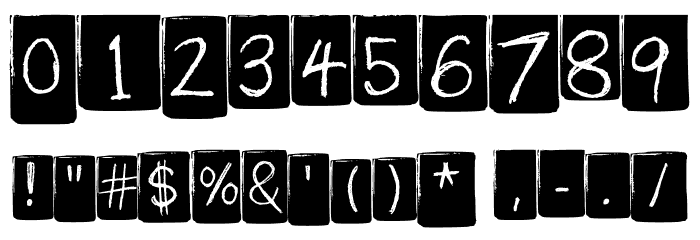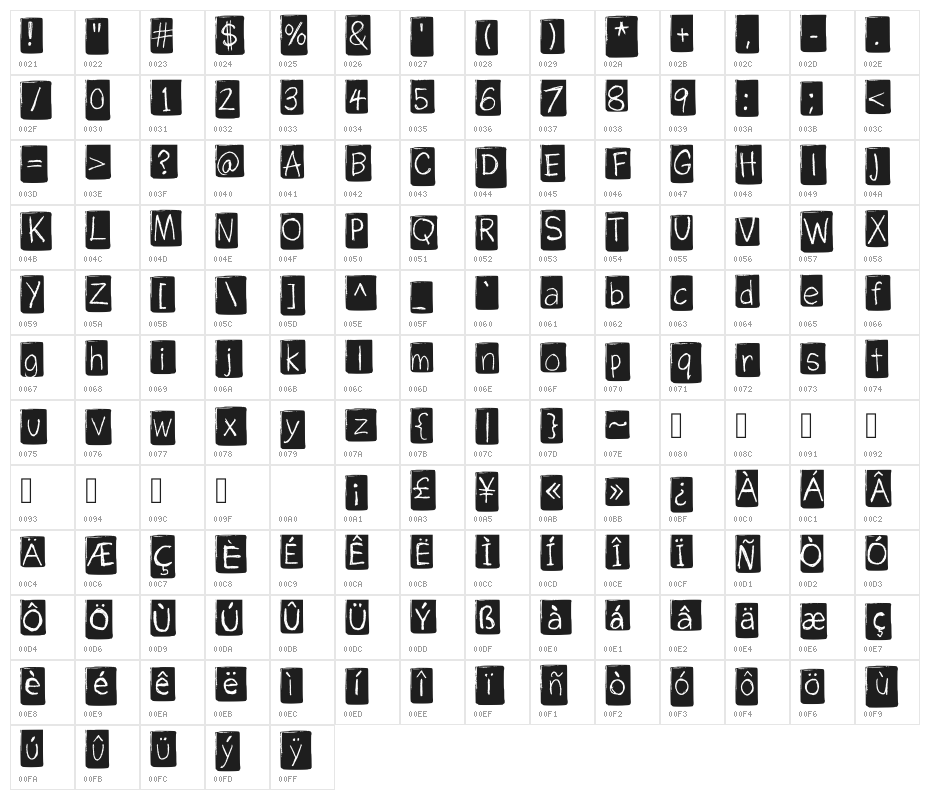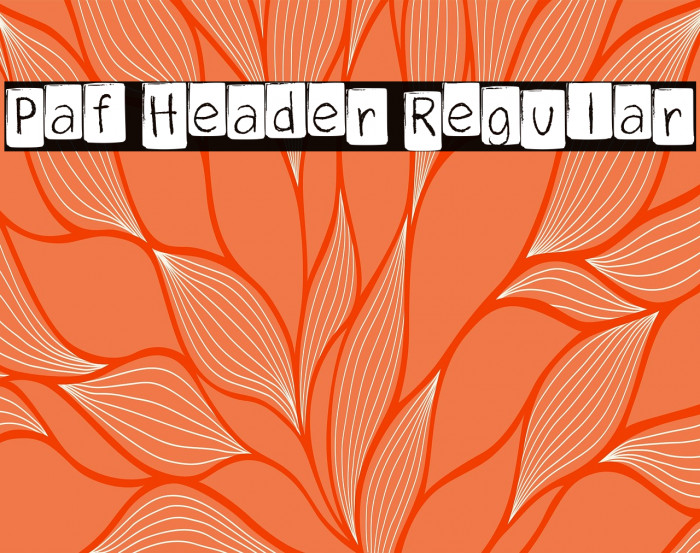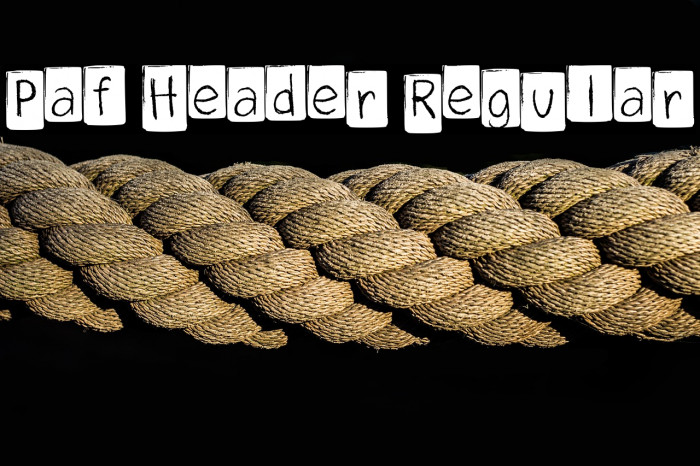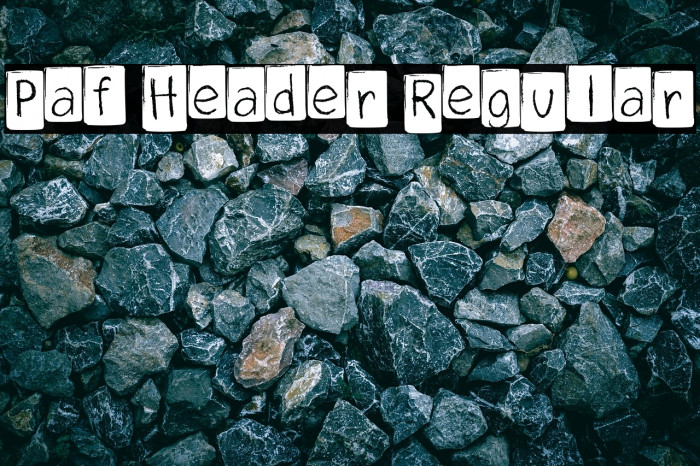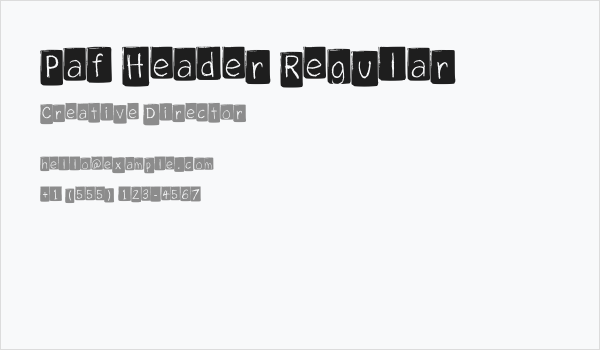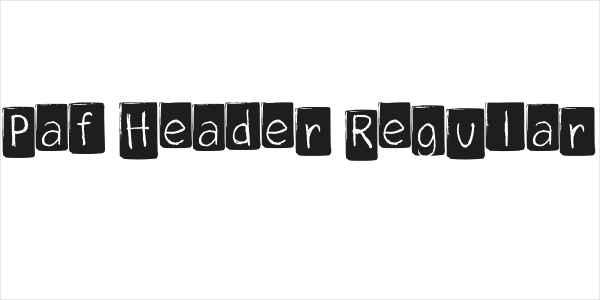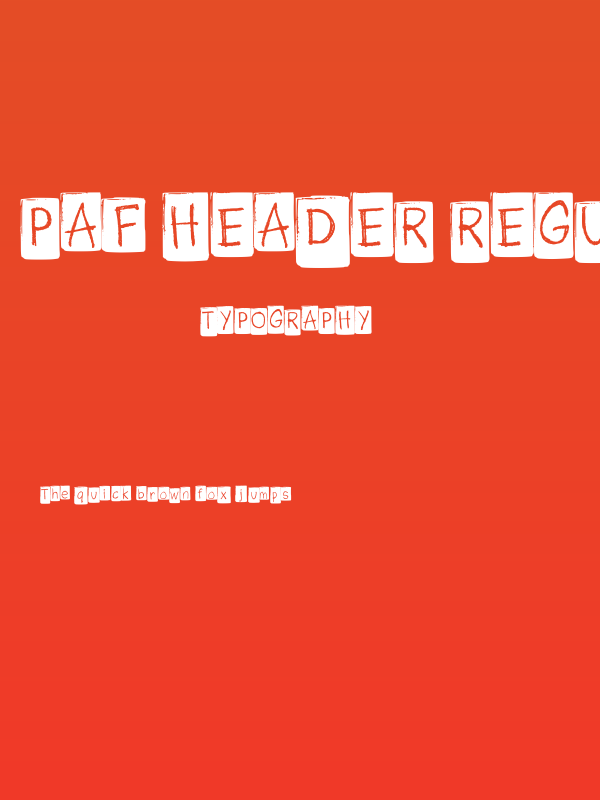
Paf Header Regular Font
Paf Header Regular Description
This font features a playful and hand-drawn style, with each character enclosed in a square, giving it a unique and artistic appearance. The letters are slightly irregular, mimicking the look of chalk or crayon on a blackboard, which adds a casual and informal touch. The uppercase and lowercase letters maintain a consistent style, with rounded edges and a slightly uneven baseline, enhancing the hand-crafted feel. Numbers and special characters follow the same design, ensuring uniformity across the font. The overall aesthetic is reminiscent of a school or creative project, making it ideal for designs that require a personal and approachable vibe.
| Overall Style | Casual, Artistic |
| Proposed Projects | Ideal for educational materials, children's books, creative posters, and casual branding. |